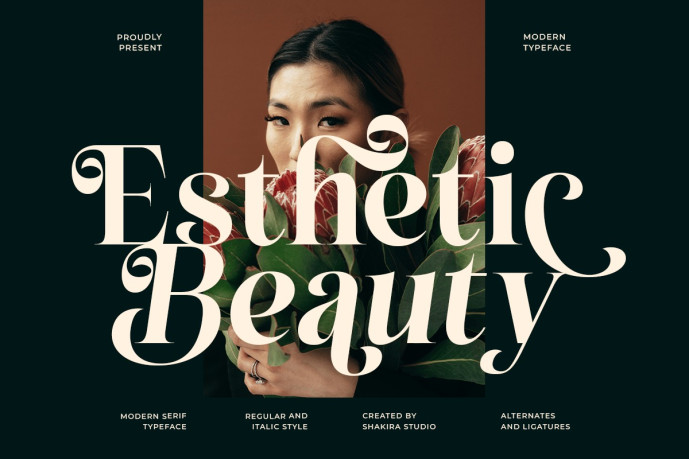
Esthetic Beauty – Serif Font
Designer: IdhhamCholid
Esthetic Beauty – Serif Font that merges editorial sophistication with soft aesthetic curves. Its graceful ligatures and elegant structure make it perfect for luxury branding, packaging, logos, and fashion design. Created for those who value both elegance and personality, Esthetic Beauty delivers timeless class in every composition.
Features:
• Uppercase & Lowercase Letters
• Alternates & Ligatures
• Regular & Italic Styles
• Multilingual Support
Perfect For: Fashion branding, magazine layouts, packaging design, and elegant visual identity.